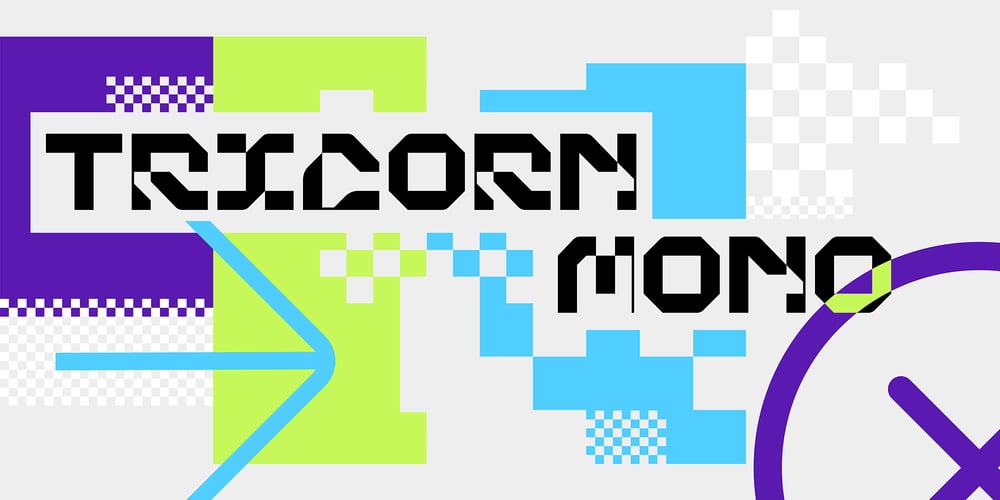
Tricorn Mono Font Family was designed by Greg Woodard and published by System2084 Type. Tricorn Mono contains 1 styles and family package options. Tricorn Mono is a monospaced font with two styles – regular filled for uppercase and an outline version for the lowercase.Tricorn Mono was first hand drawn (sketched) as an exploration for a headline font and also developed on from a previously unreleased font. It was then expanded to feature multi language support and custom symbols. Tricorn Mono contains unique forms that explores the use of a rigid grid that is tested with negative form to provide legibility and balance.The conceptual design is focused on a modern, futuristic design aesthetic around the gaming, e-sports markets and future technology. Tricorn Mono typeface has been tightly monospaced and intended for use at larger sizes as a display typeface. The font can be tightly stacked to create strong, impactful typographic forms.This 612 glyph font has language support for 87 languages: Afrikaans, Albanian, Asu, Basque, Bemba, Bena, Catalan, Cebuano, Chiga, Cornish, Corsican, Danish, Dutch, English, Estonian, Faroese, Filipino, Finnish, French, Friulian, Galician, German, Gusii, Icelandic, Ido, Indonesian, Interlingua, Irish, Italian, Javanese, Jju, Kabuverdianu, Kalenjin, Kinyarwanda, Lojban, Low German, Luo, Luxembourgish, Luyia, Machame, Makhuwa-Meetto, Makonde, Malagasy, Malay, Manx, Morisyen, North Ndebele, Northern Sotho, Norwegian Bokmål, Norwegian Nynorsk, Nyanja, Nyankole, Occitan, Oromo, Portuguese, Romansh, Rombo, Rundi, Rwa, Samburu, Sango, Sangu, Sardinian, Scottish Gaelic, Sena, Shambala, Shona, Soga, Somali, South Ndebele, Southern Sotho, Spanish, Swahili, Swati, Swedish, Swiss German, Taita, Taroko, Teso, Tsonga, Tswana, Vunjo, Walloon, Welsh, Western Frisian, Xhosa and Zulu.